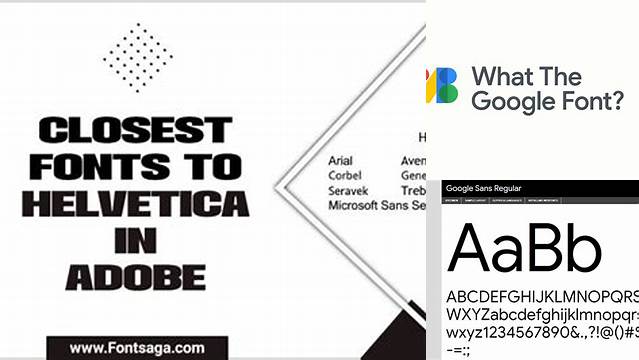
Closest Free Font To Google Sans: Top Alternatives
Introduction: Finding the Perfect Google Sans Alternative
Hey guys! Ever found yourself needing that sleek, modern look of Google Sans but without the price tag? You're not alone! Google Sans has become super popular for its clean lines and readability, making it a go-to choice for websites, apps, and branding. But let's face it, sometimes the budget is tight, or you're looking for an open-source option that gives you more flexibility. That’s where the quest for the closest free font to Google Sans begins. In this comprehensive guide, we’ll dive deep into the world of typography, exploring various fonts that capture the essence of Google Sans while being absolutely free. We’ll look at key characteristics, compare similar fonts, and give you practical tips on how to choose the right one for your project. So, whether you're a designer, developer, or just someone who appreciates great typography, stick around – you're about to discover some amazing alternatives! This exploration isn't just about saving a few bucks; it's about understanding the nuances of font design and how different typefaces can impact your message. Think of it as expanding your creative toolkit. By the end of this guide, you'll not only know which fonts are the closest matches, but also how to evaluate fonts for yourself. We'll cover everything from the subtle curves and weights to the overall feel and readability of each font. Plus, we'll touch on licensing, so you can be sure you're using your chosen font legally and ethically. Let's get started on this typographic adventure and find the perfect Google Sans alternative for your next project!
What Makes Google Sans So Popular?
So, what's the deal with Google Sans? Why is everyone so obsessed? Well, it's not just about the Google name; this font has some seriously appealing qualities. First off, it’s incredibly legible. Whether you're reading it on a crisp Retina display or a slightly older screen, Google Sans remains clear and easy on the eyes. This makes it perfect for user interfaces, websites, and any situation where readability is key. The design is also super modern and minimalist. It has a clean, geometric structure with rounded terminals, giving it a friendly yet professional vibe. It’s the kind of font that says, “Hey, we’re innovative, but we also know what we’re doing.” This versatility is a massive part of its appeal. Google Sans works just as well in a corporate presentation as it does on a trendy startup's website. Plus, it comes in a variety of weights, from thin and elegant to bold and impactful, allowing for a wide range of design applications. Think about the impact a font can have on your brand's perception. A clunky or outdated font can make your project look amateurish, while a well-chosen font like Google Sans can instantly elevate your design. Google Sans strikes that perfect balance between approachability and authority, making it a popular choice for companies that want to project a modern, trustworthy image. But here’s the kicker: Google Sans isn't exactly free for all commercial uses. That’s why finding a free alternative is so important for many designers and businesses. The challenge is to find a font that captures the same essence – the readability, the modern feel, the versatility – without infringing on any licenses. That’s what we’re here to solve. We’re going to break down the key characteristics of Google Sans, so you know exactly what to look for in an alternative. Then, we'll explore some of the best free fonts that come remarkably close. Get ready to expand your font library and impress your clients (or yourself!) with your newfound typographic knowledge.
Key Characteristics of Google Sans
Okay, let's get down to the nitty-gritty. To find the closest free font to Google Sans, we need to understand exactly what makes it tick. What are the key characteristics that define its look and feel? This isn't just about finding a font that looks vaguely similar; it's about identifying the core elements that make Google Sans so effective and finding those same elements in a free alternative. One of the most noticeable features of Google Sans is its geometric design. This means it’s built on simple shapes – circles, squares, and triangles – giving it a clean, structured appearance. The letterforms are generally uniform in width, which contributes to its modern aesthetic. Think about the “O” in Google Sans – it’s almost a perfect circle. This geometric foundation is crucial to replicating its style. Another key element is the rounded terminals. These are the soft, curved ends of the strokes in letters like “a,” “c,” and “g.” The rounded terminals give Google Sans a friendly and approachable feel, differentiating it from more severe, sharp-edged fonts. It's this subtle detail that makes the font feel less corporate and more human. Readability is another non-negotiable characteristic. Google Sans is designed to be highly legible in a variety of sizes and contexts, from body text to headlines. This is achieved through careful attention to letter spacing, x-height (the height of lowercase letters), and overall clarity of the letterforms. A good alternative must also excel in readability. The weight range is also important. Google Sans comes in multiple weights, from Thin to Bold, allowing for flexibility in design. A good alternative should ideally offer a similar range of weights to ensure versatility. Finally, there’s the overall modern and minimalist feel. Google Sans is uncluttered and contemporary, making it suitable for a wide range of applications. It doesn't have any unnecessary flourishes or decorative elements. When evaluating free fonts, we need to look for this same sense of simplicity and elegance. So, armed with this knowledge, we can start our search. We know we need a font that’s geometric, has rounded terminals, is highly legible, offers a good weight range, and has a modern, minimalist aesthetic. It’s a tall order, but there are some fantastic free fonts out there that come surprisingly close. Let's dive in and explore our options!
Top Free Fonts Similar to Google Sans
Alright, let's get to the good stuff! You're probably itching to know which free fonts can give you that Google Sans vibe without costing a dime. We've scoured the internet and handpicked some top contenders that share key characteristics with Google Sans. These fonts aren't just similar in appearance; they also offer excellent readability and versatility, making them great choices for a variety of projects. First up, we have Lato. Lato is a sans-serif typeface designed by Łukasz Dziedzic. It’s known for its semi-rounded details, which give it a warm and friendly feel, much like Google Sans. Lato is highly legible and comes in a variety of weights, making it a versatile choice for both body text and headlines. It's a solid all-around option that won't disappoint. Next on our list is Montserrat. This font has gained a lot of popularity in recent years, and for good reason. Designed by Julieta Ulanovsky, Montserrat is inspired by the urban typography of Buenos Aires. It has a geometric sans-serif design with a clean and modern aesthetic. Montserrat is particularly strong in headlines and display settings, but it also works well in shorter blocks of body text. With its extensive range of weights and styles, Montserrat is a fantastic free alternative to Google Sans. Then we have Open Sans, another super popular font in the design world. Open Sans was designed by Steve Matteson and commissioned by Google. Yep, you read that right! While it’s not Google Sans, it’s a Google-commissioned font, so you know it’s going to be high-quality. Open Sans is known for its neutral yet friendly appearance, making it incredibly versatile. It’s highly legible in both print and digital environments, and it comes in a variety of weights, including a condensed version. If you're looking for a font that's widely supported and incredibly reliable, Open Sans is an excellent choice. Another worthy contender is Nunito. Nunito is a well-balanced sans-serif typeface with rounded terminals, giving it a soft and approachable feel. Designed by Vernon Adams and later updated by Jacques Le Bailly, Nunito is particularly well-suited for user interfaces and web design. It’s clean, modern, and highly legible, making it a strong alternative to Google Sans. Last but not least, let's talk about Raleway. Originally designed by Matt McInerney as a single thin weight, Raleway has since been expanded into a full family with a wide range of weights and styles. It has a geometric sans-serif design with a touch of elegance, making it a great choice for both display and text use. Raleway’s clean lines and modern aesthetic make it a compelling alternative to Google Sans. So, there you have it – our top picks for free fonts that are similar to Google Sans. But remember, the best font for your project will depend on your specific needs and preferences. Let's dive deeper into how to choose the right one.
Conclusion: Finding Your Perfect Free Font Match
Okay, guys, we've reached the end of our journey to find the closest free font to Google Sans! We've covered a lot of ground, from understanding what makes Google Sans so popular to exploring a range of fantastic free alternatives and navigating the world of font licensing. Hopefully, you're now feeling confident and equipped to choose the perfect font for your next project. Remember, finding the right font is about more than just aesthetics. It's about communication, readability, and aligning your font choice with the overall tone and purpose of your design. The fonts we discussed – Lato, Montserrat, Open Sans, Nunito, and Raleway – are all excellent options that capture the essence of Google Sans in their own unique ways. Each font has its strengths and nuances, so take the time to experiment and see which one resonates best with your vision. But don't limit yourself to just these options! The world of typography is vast and exciting, with countless free fonts waiting to be discovered. Use the knowledge you've gained in this guide to evaluate other fonts and find hidden gems that perfectly match your style. When you're exploring new fonts, always pay attention to the key characteristics we discussed earlier: geometric design, rounded terminals, readability, weight range, and overall modern feel. These elements are crucial for replicating the Google Sans aesthetic. And of course, never forget about licensing! Always read the license agreement carefully to ensure you're using the font legally and ethically. If you're ever in doubt, reach out to the font designer or consult with a legal professional. Typography is a powerful tool in design. A well-chosen font can elevate your project, enhance your message, and create a lasting impression. By understanding the nuances of font design and taking the time to choose the right typeface, you can create designs that are both visually appealing and highly effective. So, go forth and experiment! Explore the world of free fonts, find your perfect match, and create something amazing. And remember, the best design choices are always informed by knowledge and creativity. Happy designing!